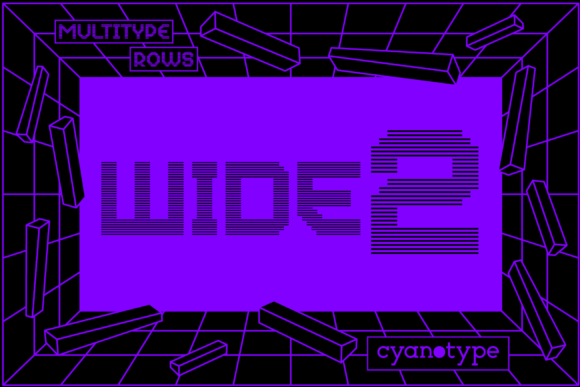
Journey into the realm of captivating typography with MultiType Rows Wide 2, the pixelated display font that's sure to turn heads. Experience the allure of its uniquely shaped characters, each meticulously crafted to exude a distorted, trendy charm. Unleash your creativity with this extraordinary font, designed to add an unconventional edge to your projects.
MultiType Rows Wide 2 is more than just a font; it's an artistic expression that transcends the boundaries of ordinary typography. Its pixelated design evokes a sense of nostalgia, harkening back to the early days of digital art. Yet, it also embraces modernity, pushing the limits of what a font can be.
With MultiType Rows Wide 2, you'll embark on a typographic adventure like no other. Its versatility knows no bounds, as it effortlessly adapts to a myriad of design concepts. From eye-catching headlines to captivating logos, from social media posts that pop to print designs that leave a lasting impression, MultiType Rows Wide 2 is your trusted companion.
This font isn't just about aesthetics; it's about making a statement. Its distorted characters command attention, demanding to be noticed. Whether you're crafting a bold poster, an unforgettable branding identity, or an engaging website, MultiType Rows Wide 2 ensures your message cuts through the noise and resonates with your audience.
Embrace the power of MultiType Rows Wide 2 and unlock a world of typographic possibilities. Its PUA encoding grants you effortless access to a treasure trove of glyphs and swashes, allowing you to unleash your creativity and craft designs that leave an indelible mark.
Don't settle for ordinary fonts; elevate your designs to new heights with MultiType Rows Wide 2. Experience the fusion of art and technology, the perfect balance between tradition and innovation. Let this pixelated masterpiece ignite your imagination and propel your projects to the forefront of design excellence.